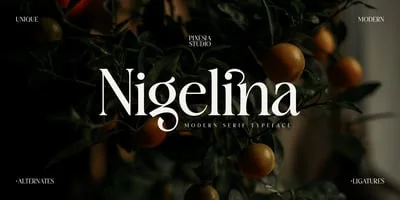
Nigelina Font
Nigelina Font is perfect for feminine branding, beauty products, fashion magazines, elegant stationery, wedding invitations, lifestyle brands, and sophisticated personal design projects. This graceful typeface brings refined femininity and elegant charm to delicate design applications.
Nigelina Font is exciting because it embodies sophisticated femininity with its graceful letterforms that convey elegance and delicate beauty while maintaining exceptional readability and timeless appeal across luxury and lifestyle applications.
The Nigelina Font family includes regular and italic styles with elegant character variations and decorative elements. This refined collection provides designers with graceful options for creating memorable and sophisticatedly feminine brand experiences.
Nigelina Font offers designers access to an elegantly crafted typeface that captures the essence of refined femininity and sophisticated beauty. This graceful font features delicately designed letterforms with elegant details that create immediate associations with luxury, grace, and feminine sophistication. The typeface showcases refined proportions and beautiful aesthetics that enhance feminine communications while maintaining professional functionality and broad appeal. Its elegant character makes it particularly suitable for beauty brands and lifestyle companies that require typography capable of conveying femininity, sophistication, and elegant charm. Nigelina Font delivers exceptional grace for applications where masculine or neutral fonts feel inappropriate for feminine-focused communications and luxury lifestyle branding. The font's feminine appeal and elegant aesthetic make it an essential tool for designers working on projects that require typographic expression of beauty, grace, and sophisticated femininity that resonates with audiences seeking authentic elegance and refined feminine experiences.